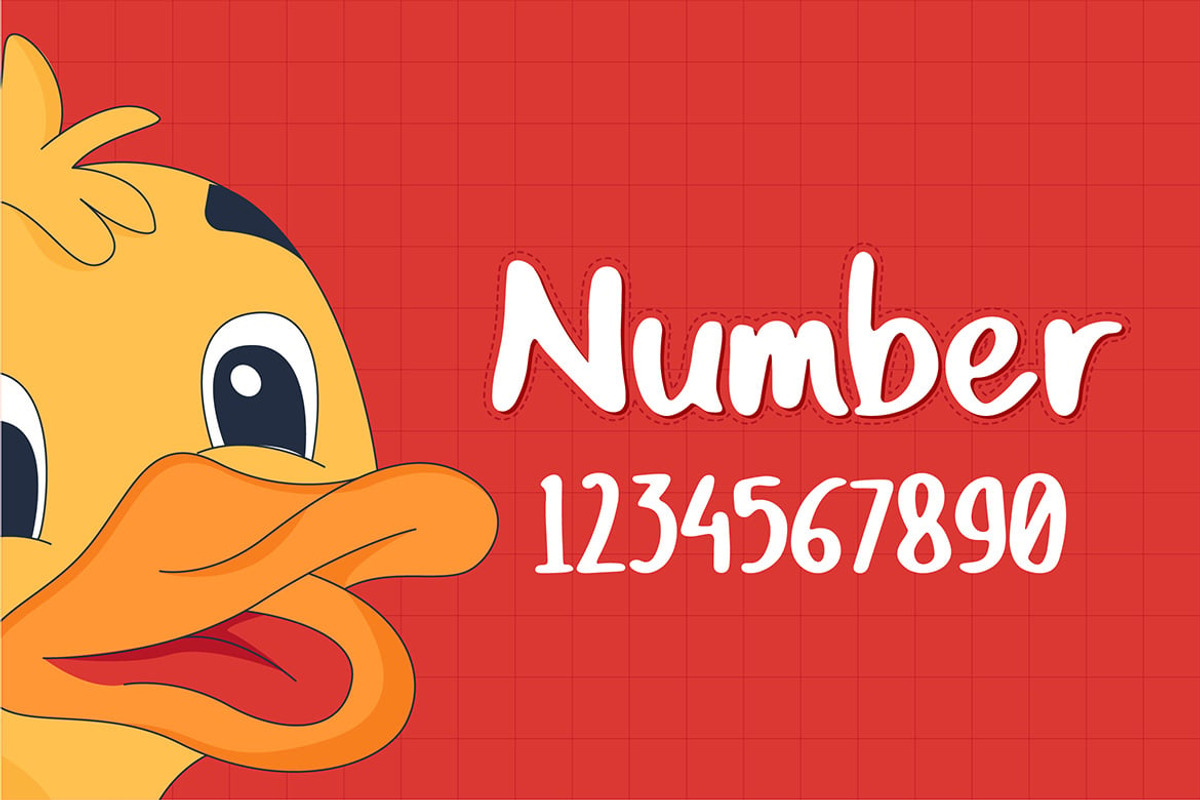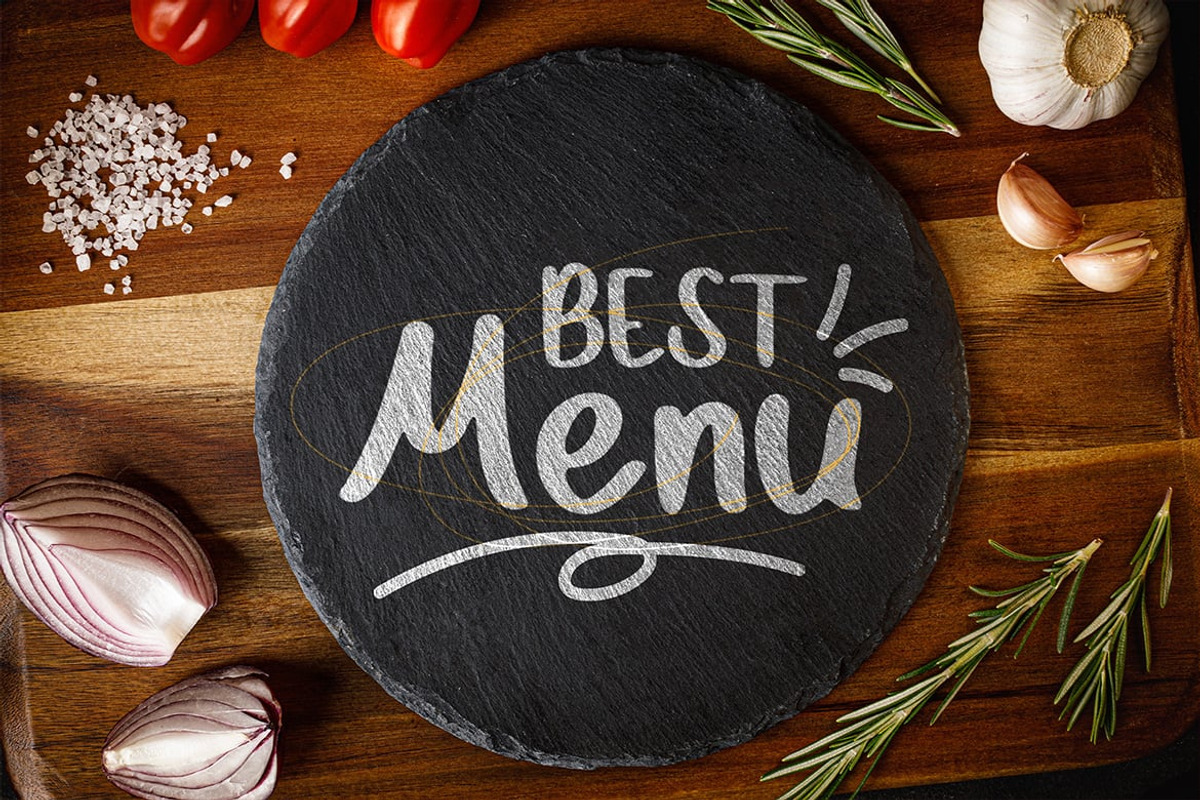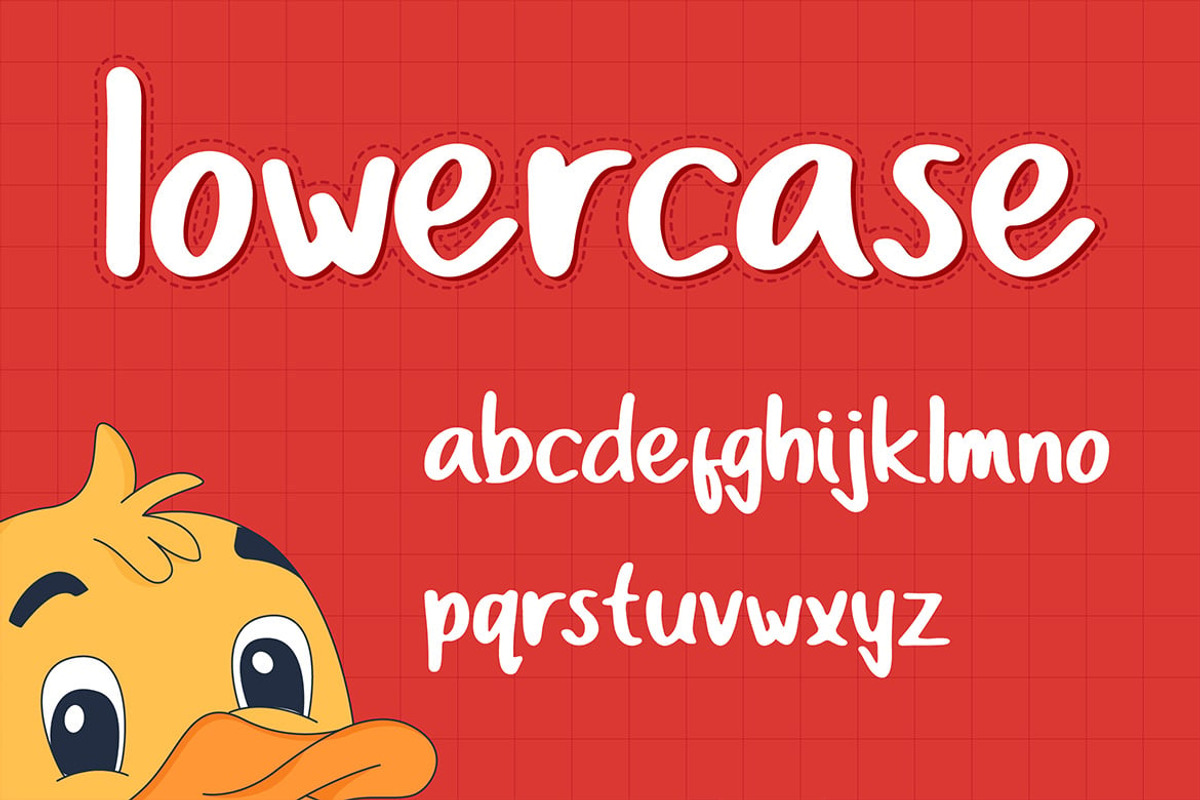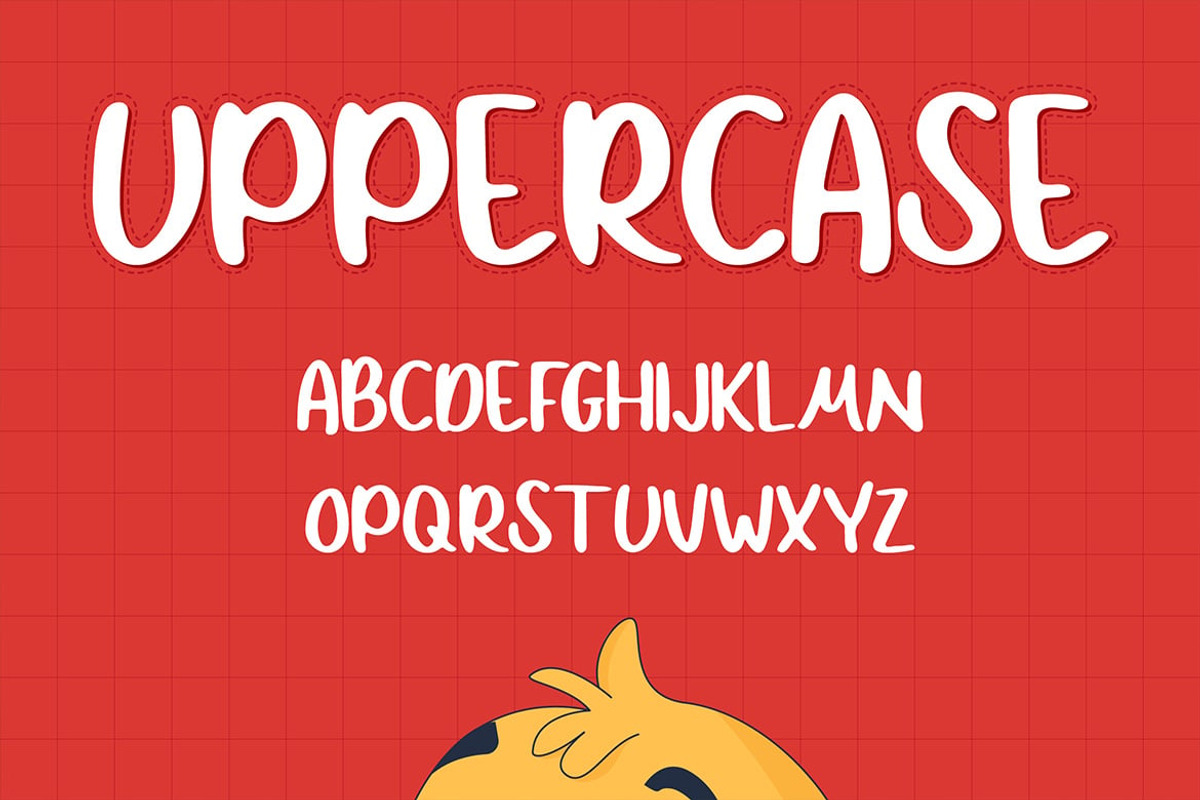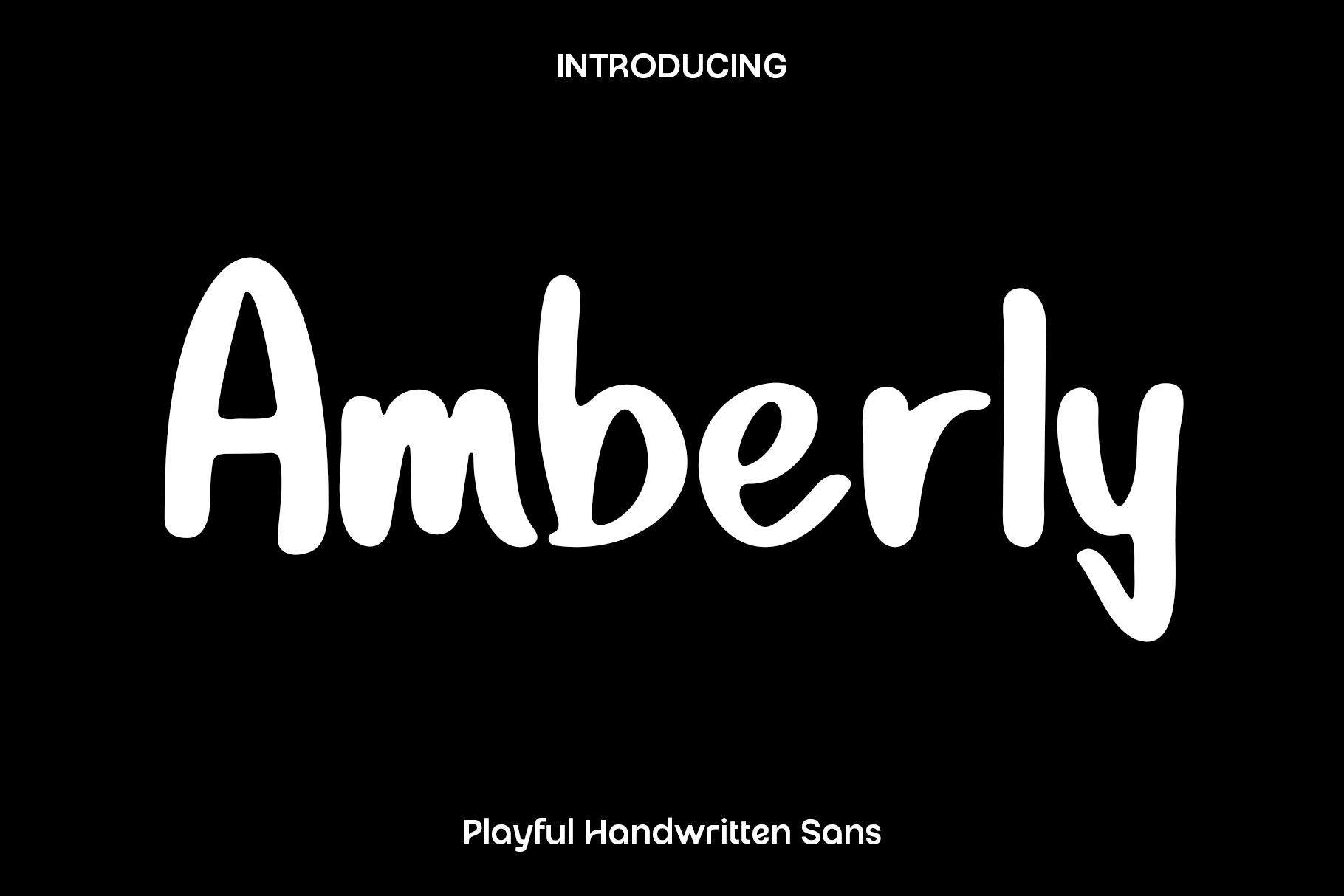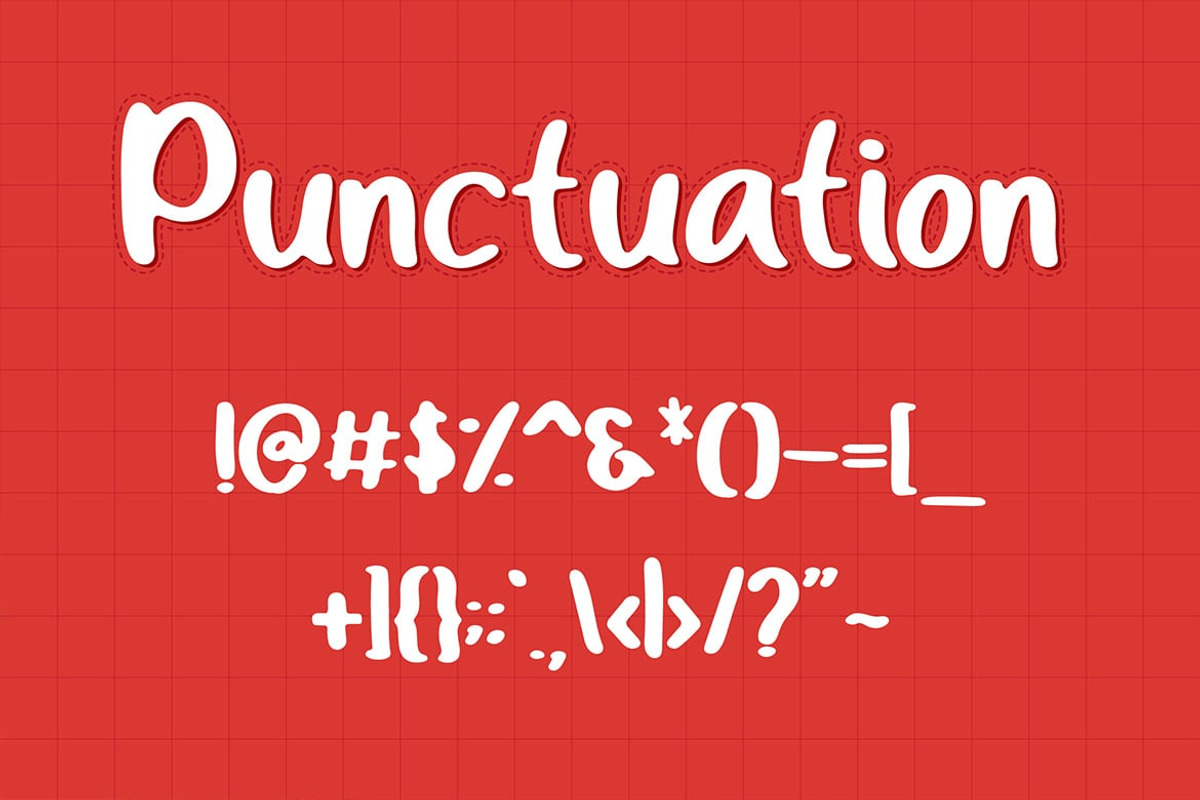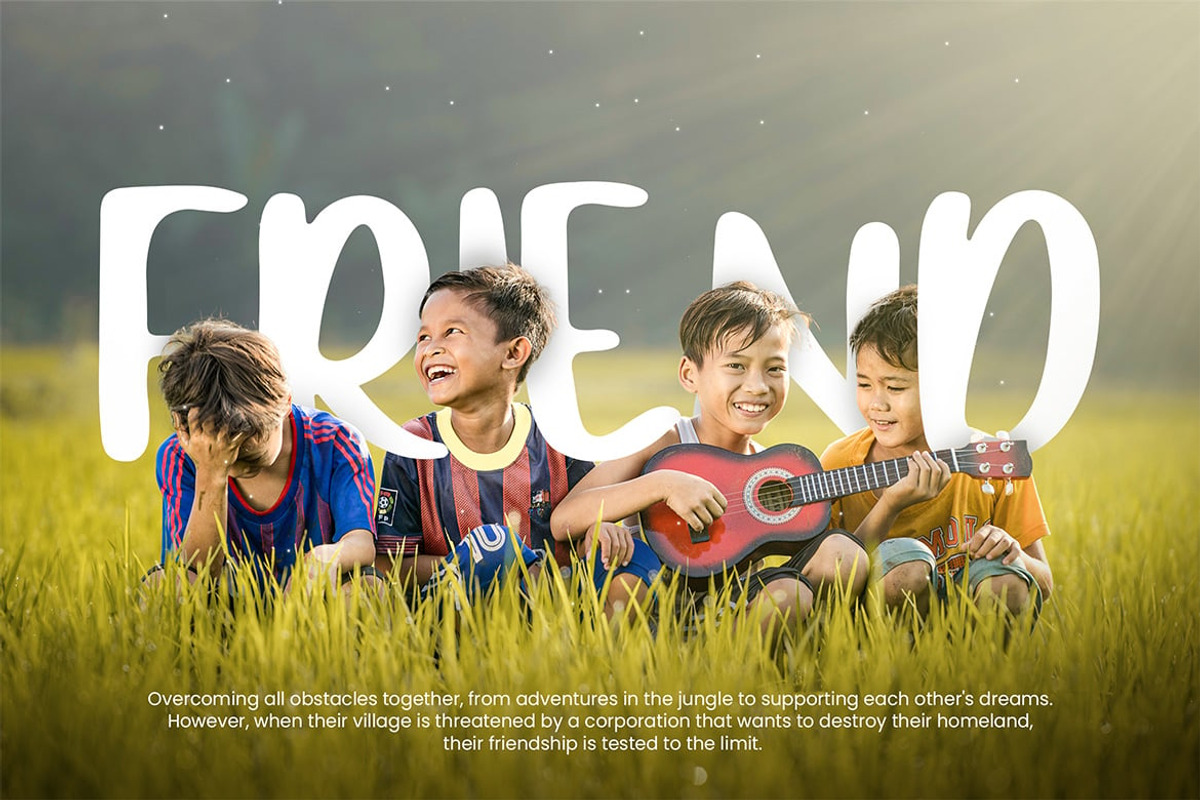
Amberly - Creative Display Font
Amberly is a stylish and expressive display font created to bring creativity, charm, and artistic personality into your design projects. Inspired by modern decorative typography and playful visual aesthetics, Amberly features unique letterforms that feel bold, fun, and visually engaging. Its balanced structure and eye catching style make it perfect for creating typography that instantly stands out while remaining clear and easy to read.
Perfect for greeting cards, invitations, posters, baby clothing, book covers, quotes, logos, presentations, headlines, social media graphics, and branding projects, Amberly adds a creative and cheerful atmosphere to every design. Whether you are creating playful promotional materials or elegant artistic layouts, this font helps transform ordinary text into memorable visual art.
Amberly was designed for creators who want typography that feels versatile, modern, and full of character. Its decorative display style works beautifully across both print and digital applications, giving your projects a fresh and energetic personality. From stylish headlines to imaginative branding concepts, Amberly allows designers to explore creativity with confidence and originality.
The unique appearance of Amberly makes it suitable for a wide range of creative themes, from fun and playful designs to modern artistic compositions. It is a font that encourages imagination while helping your visuals feel polished, expressive, and engaging.
Amberly Font Features:
• Creative display font style
• Unique and expressive letterforms
• Uppercase and lowercase characters
• Numerals and punctuation
• Perfect for posters, invitations, logos, and headlines
• Fun and artistic typography appearance
• Suitable for print and digital projects
• Modern and versatile design aesthetic